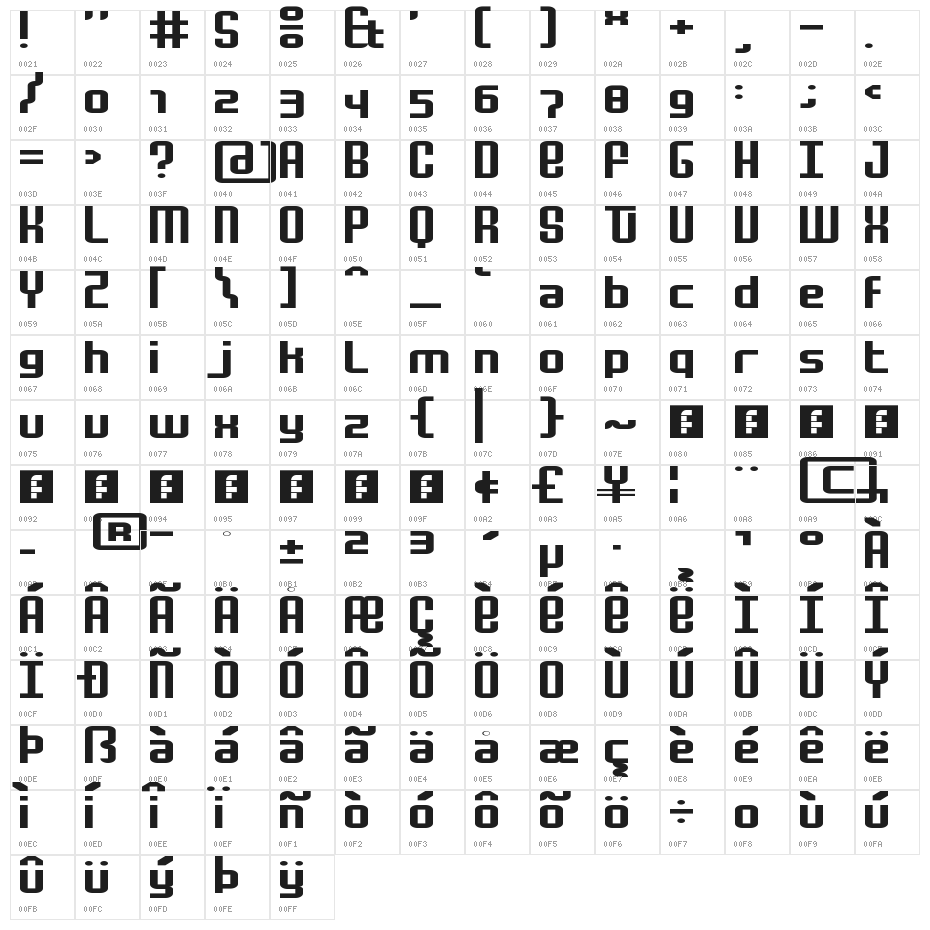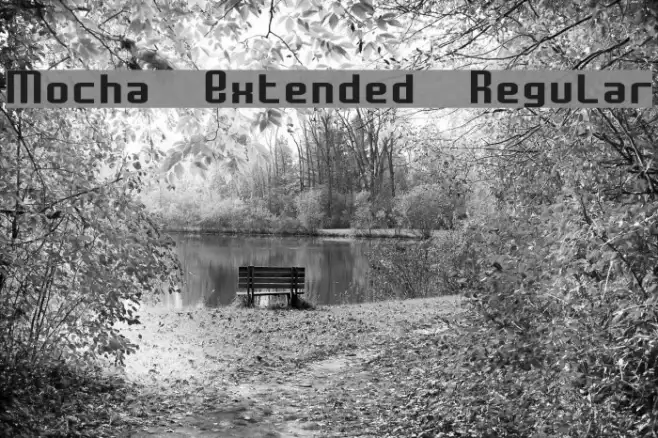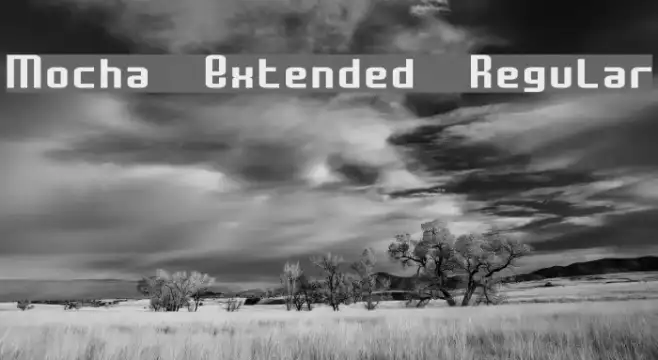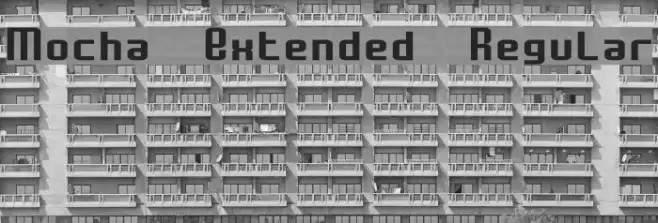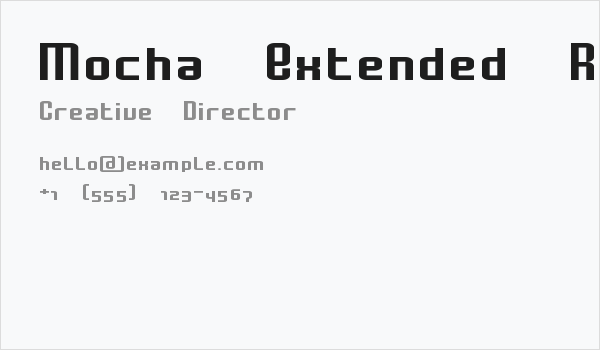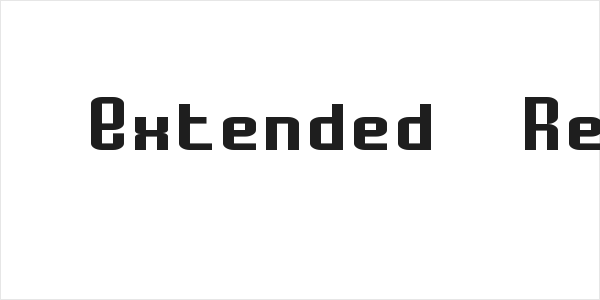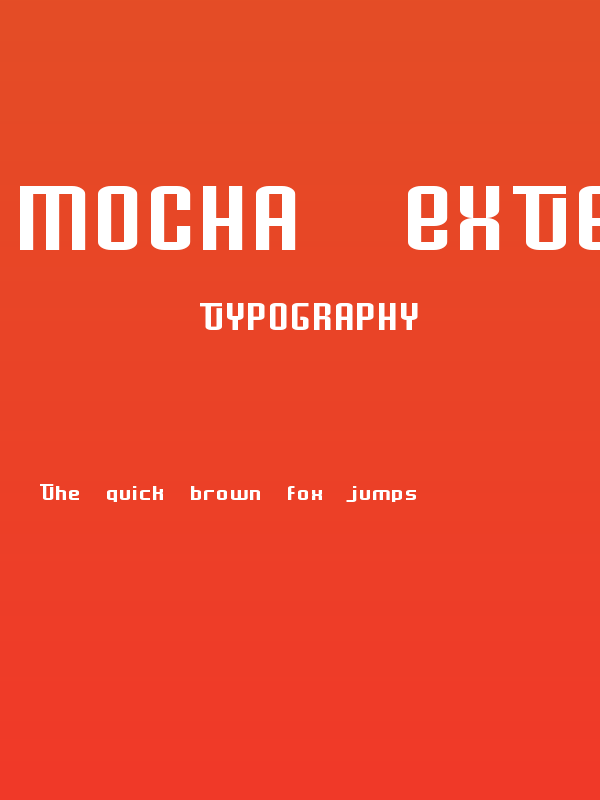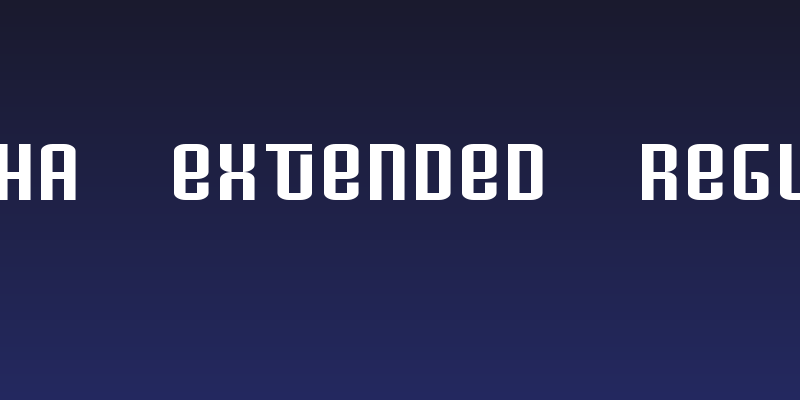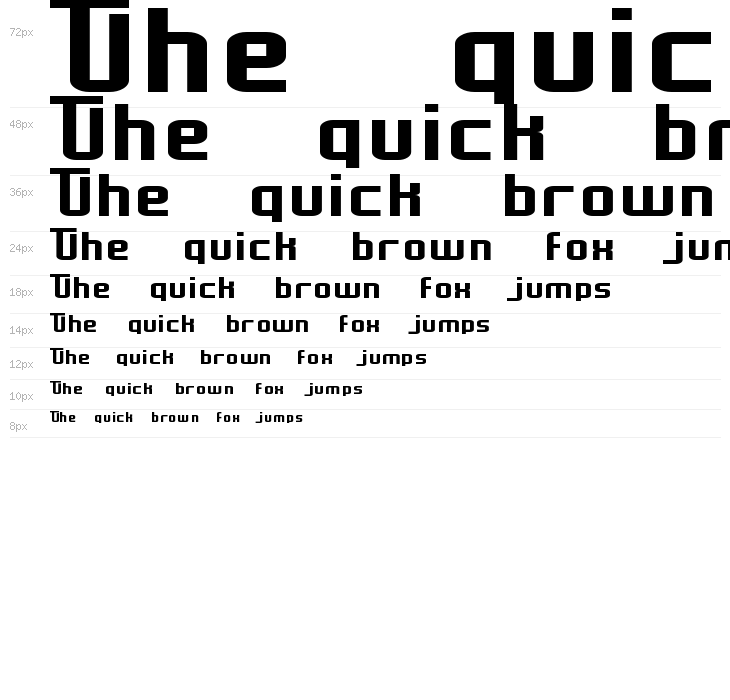
Mocha Extended Regular Font
Mocha Extended Regular Description
This font features a bold and geometric design with a modern and futuristic feel. The characters are constructed with straight lines and sharp angles, giving it a structured and mechanical appearance. The uppercase and lowercase letters maintain a consistent height, contributing to its uniformity. The numerals and special characters follow the same design principles, ensuring a cohesive look across all glyphs. The font's extended width allows for a spacious and open feel, making it suitable for various design applications. Its clean lines and lack of ornamentation emphasize readability and clarity.
| Use Case | Headlines, Logos, Digital Interfaces |
| Proposed Projects | Ideal for technology branding, digital interfaces, signage, and futuristic-themed projects. |